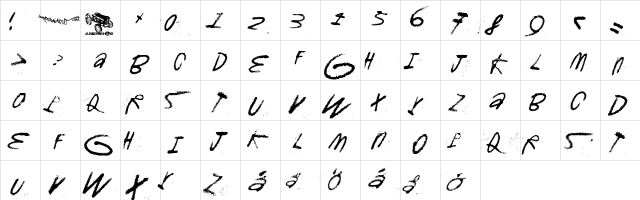
Gromagroo Regular
Design Context for Gromagroo Typeface
Gromagroo is a composed and adaptable typeface that performs quietly and consistently across a wide range of design contexts.